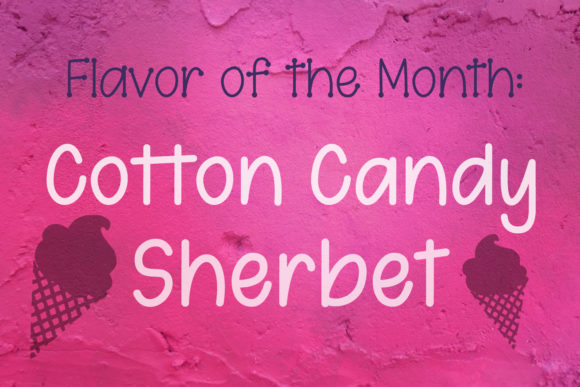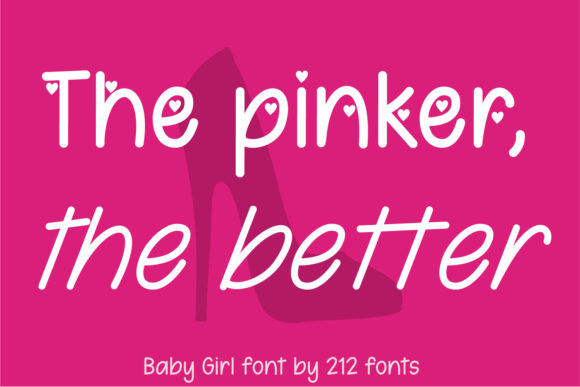
Introduction to 212 Girly Stuff Font
212 Girly Stuff is an interesting and unique dingbats font.
Add it to your most creative ideas and notice how it makes them come alive .
Key Features of 212 Girly Stuff Font
Why Choose 212 Girly Stuff Font?